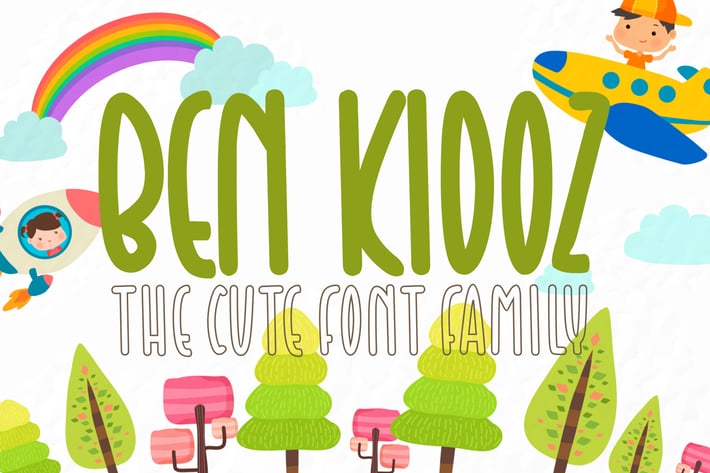
Ben Kidoz - Cute Display Family Font
Ben Kidoz is a sweet font family, its included Regular, Italic, Bold and Hollow Style. Ben Kidoz is a handwritten playful font, it's suitable for crafting, apparel, logo, school banner, poster, advertising, drink, food, etc.